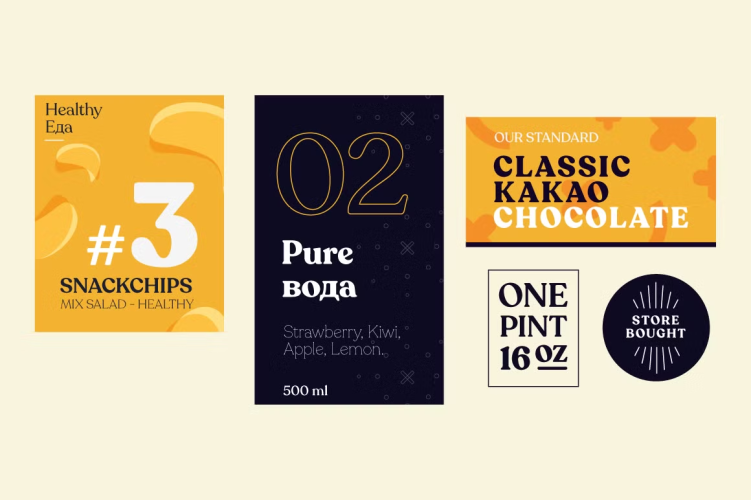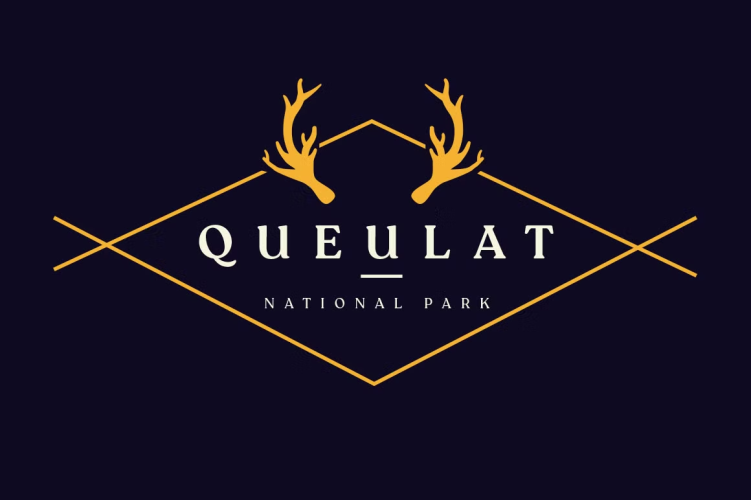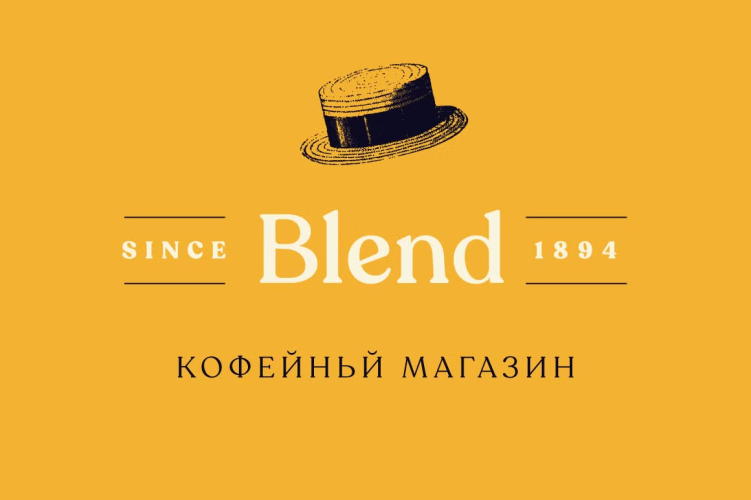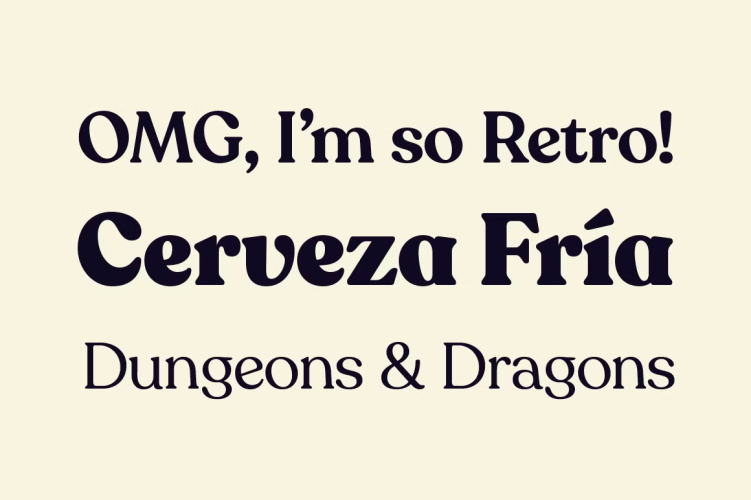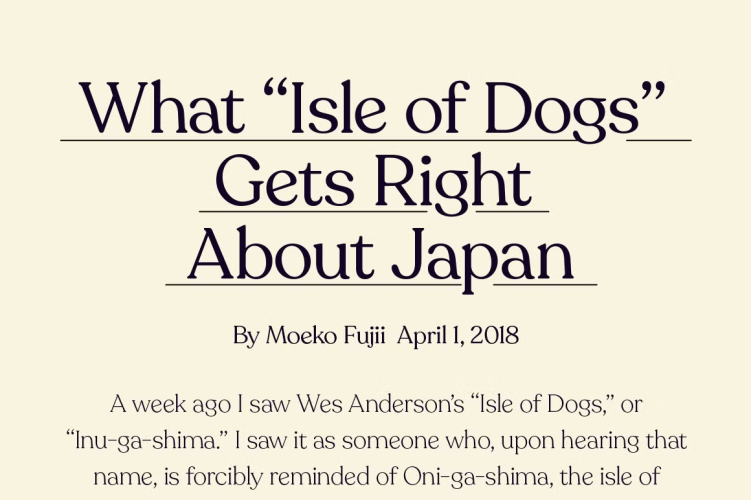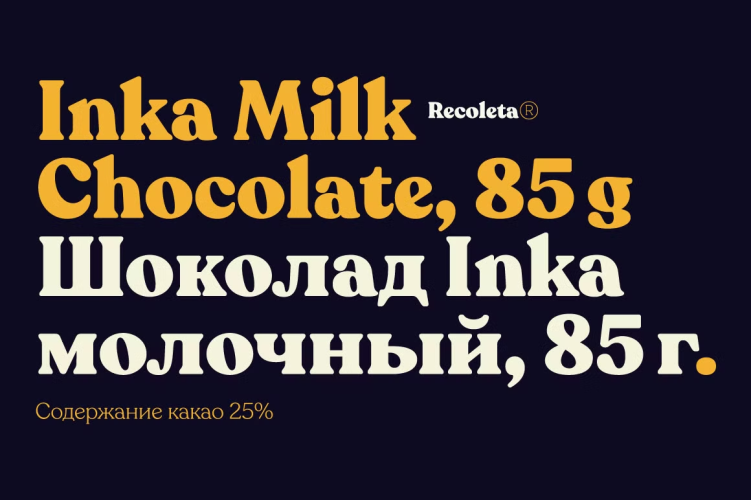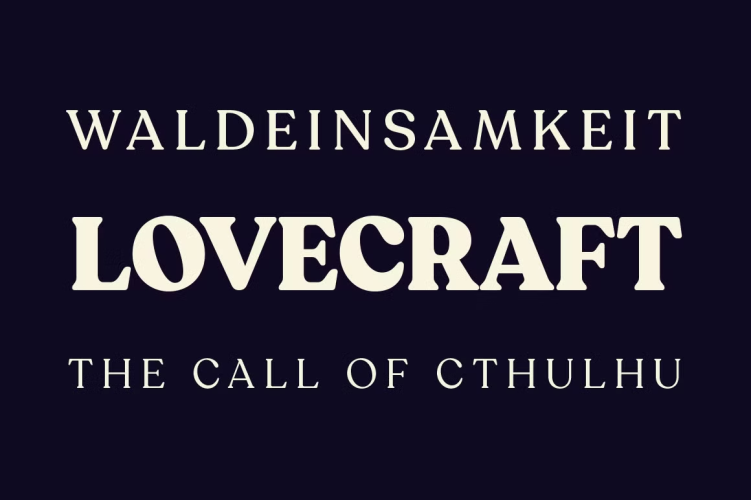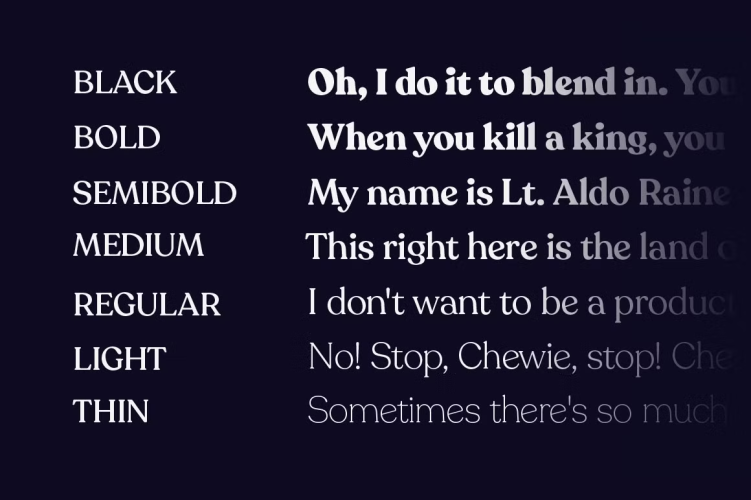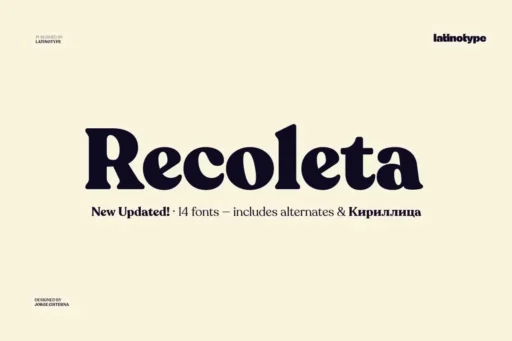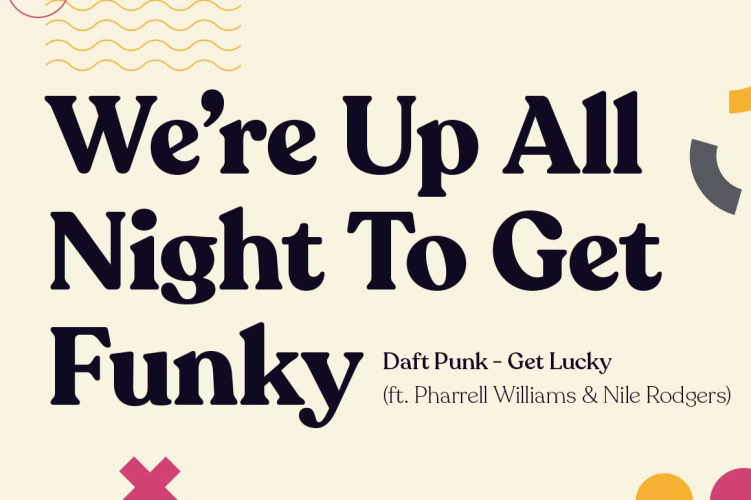
Recoleta Font
Recoleta is a fairly used serif contemporary font by Latinotype, released in 2014. One of the most beautiful advantages of Recoleta is its skimpy and fragile letters, many counters, and slightly tilted axis, which is helped by aristocracy and sophistication.
This serif, reminiscent of the early Art Nouveau and Art Deco styles of the 1900s, blends the vintage charm of the past with contemporary streamlined design. This yields a very acceptable and readable font that is adaptable for reading the subtext and headlines.
Recoleta is a charming, predictable font family suitable for high-end packages and style-related designs. Its softness and neo-classical gentleness break the stiff, formal impression expected of most buildings in their surroundings. The header style of a website wrap for packaging, invitations, magazines, or books can be written in a very readable and chatty form. Recoleta is a typeface that has a nostalgic character while still being progressive. It is historically famous; it may represent the 21st-century serif.
Where Recoleta Font works best
Recoleta Font gives long-form text a classic, trustworthy rhythm — ideal for magazine spreads, annual reports and book interiors.
Pair Recoleta Font with generous letter-spacing for wordmarks in fashion, hospitality, wine and jewellery branding.
Use Recoleta Font for slide titles in Keynote, PowerPoint or Google Slides to add authority without looking dated.
What is Recoleta Font good for?